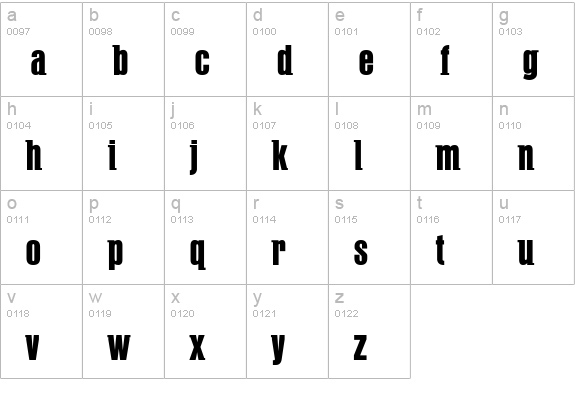
PFFusion Heavy is a heavy, high-impact variant in the PFFusion typeface family \xE2\x80\x94 well suited to high-impact headlines, posters, and display advertising.
Introducing PFFusion Heavy font, a bold and impactful typeface that commands attention with its strong and sturdy design. This versatile font is perfect for creating eye-catching headlines, posters, and branding materials that need to make a bold statement. The PFFusion Heavy font features clean lines and a modern aesthetic that exudes confidence and strength. Best of all, this high-quality font is available for free download at FontsMarket.com. Whether you're a designer looking to add a powerful touch to your projects or a business owner in need of a striking font for your branding, PFFusion Heavy is the perfect choice. Download it today and unleash the full potential of your designs with this dynamic and expressive typeface.